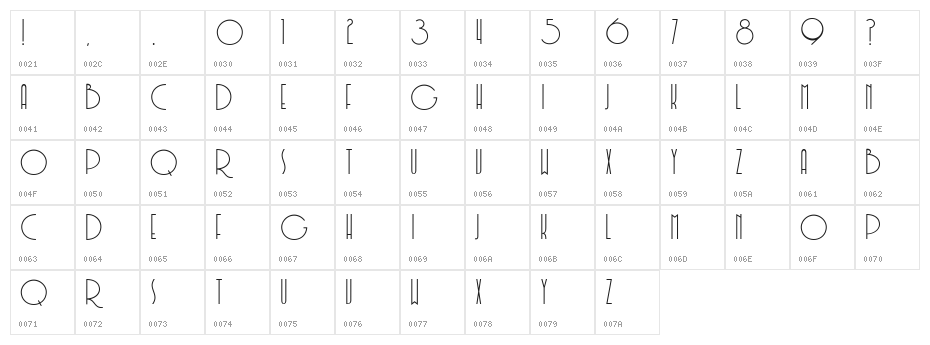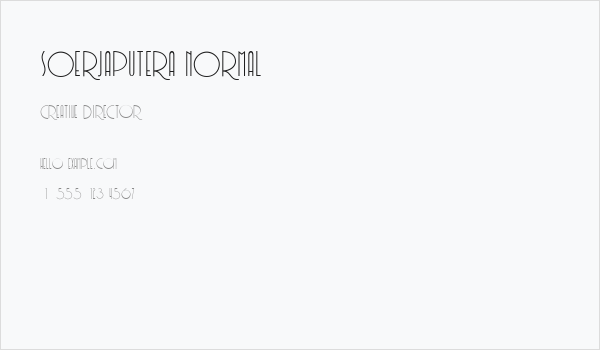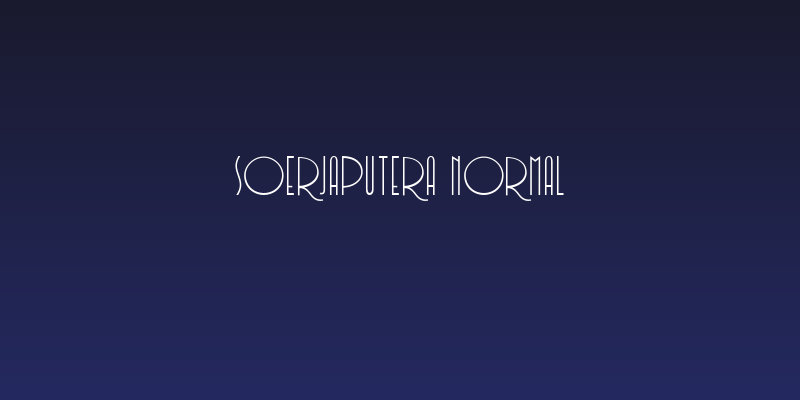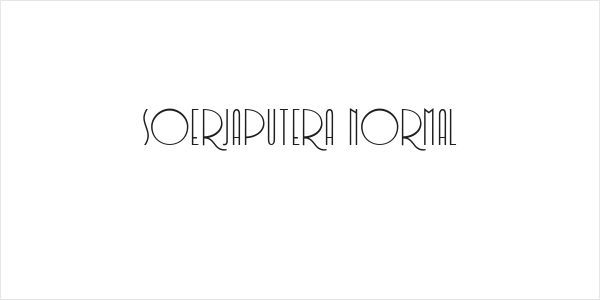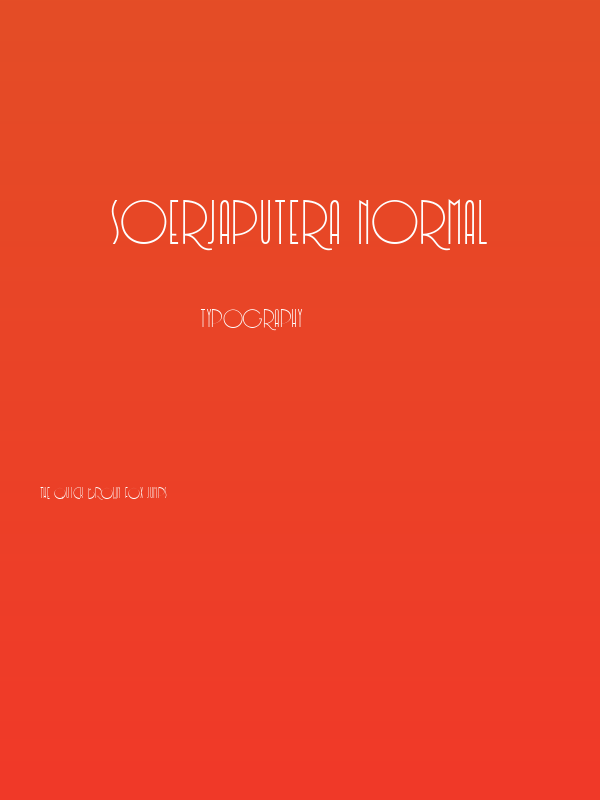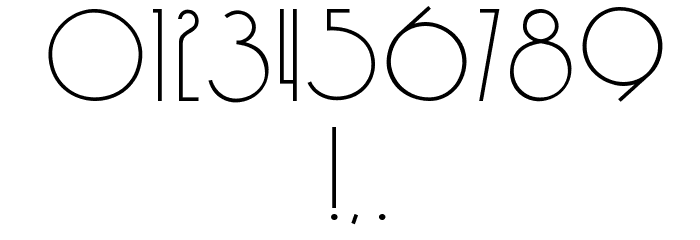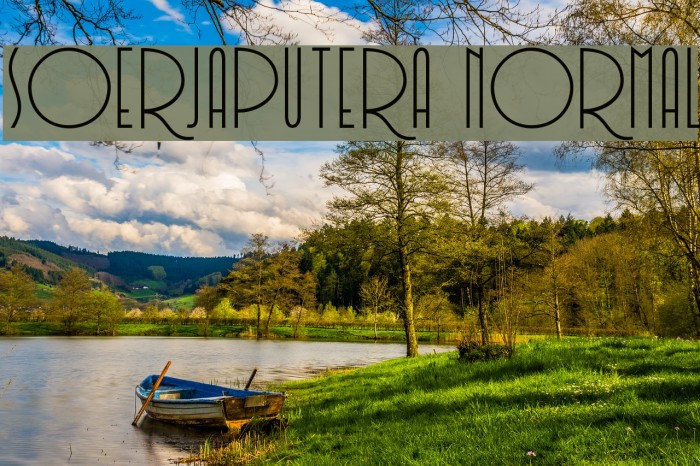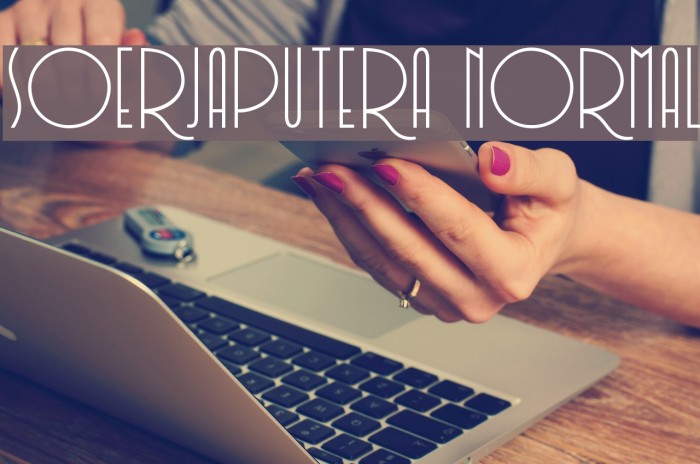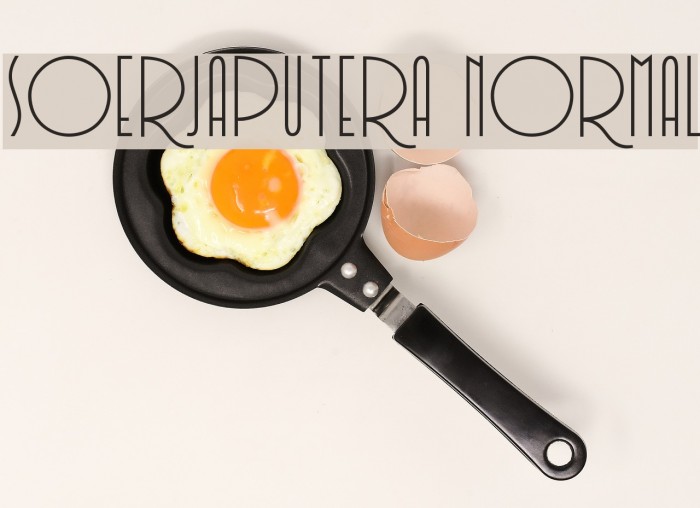
Soerjaputera Normal Font
Soerjaputera Normal Description
This font features a modern and elegant design with a geometric and art deco influence. The characters are tall and slender, with a consistent stroke width that gives it a clean and sophisticated appearance. The uppercase letters have a distinctive style with elongated forms, while the lowercase letters maintain a similar aesthetic with slightly more rounded shapes. The numerals are designed to complement the overall style, maintaining the same geometric precision. Special characters are minimalistic, fitting seamlessly with the rest of the font. This typeface is ideal for projects that require a touch of elegance and modernity.
| Overall Style | Modern, Elegant |
| Use Case | Logos, Headlines, Editorial Design |
| Proposed Projects | Ideal for branding, luxury product packaging, editorial design, and event invitations. |